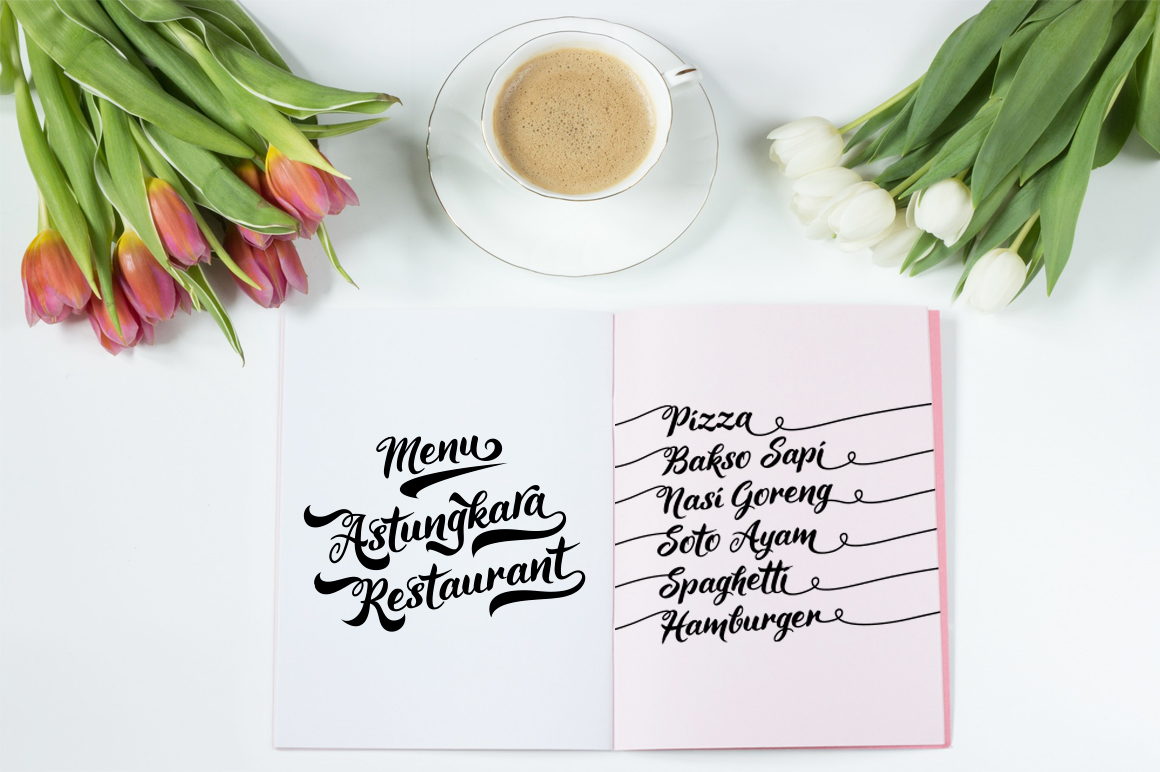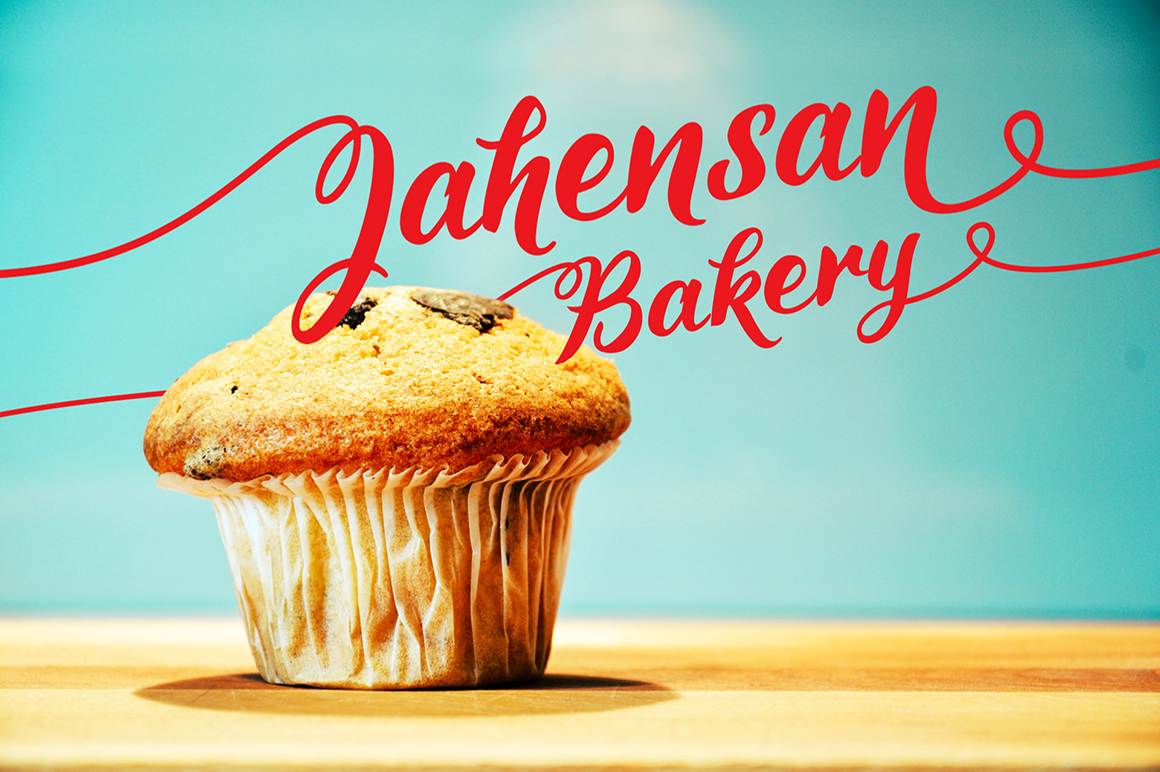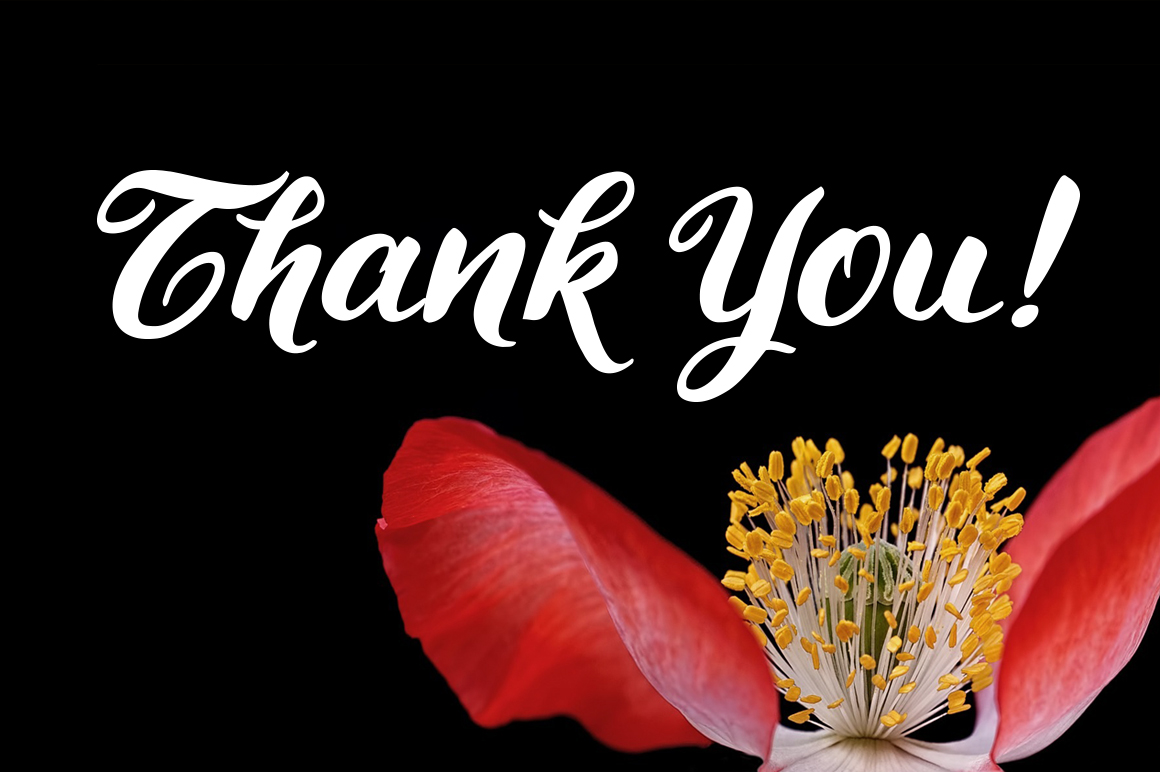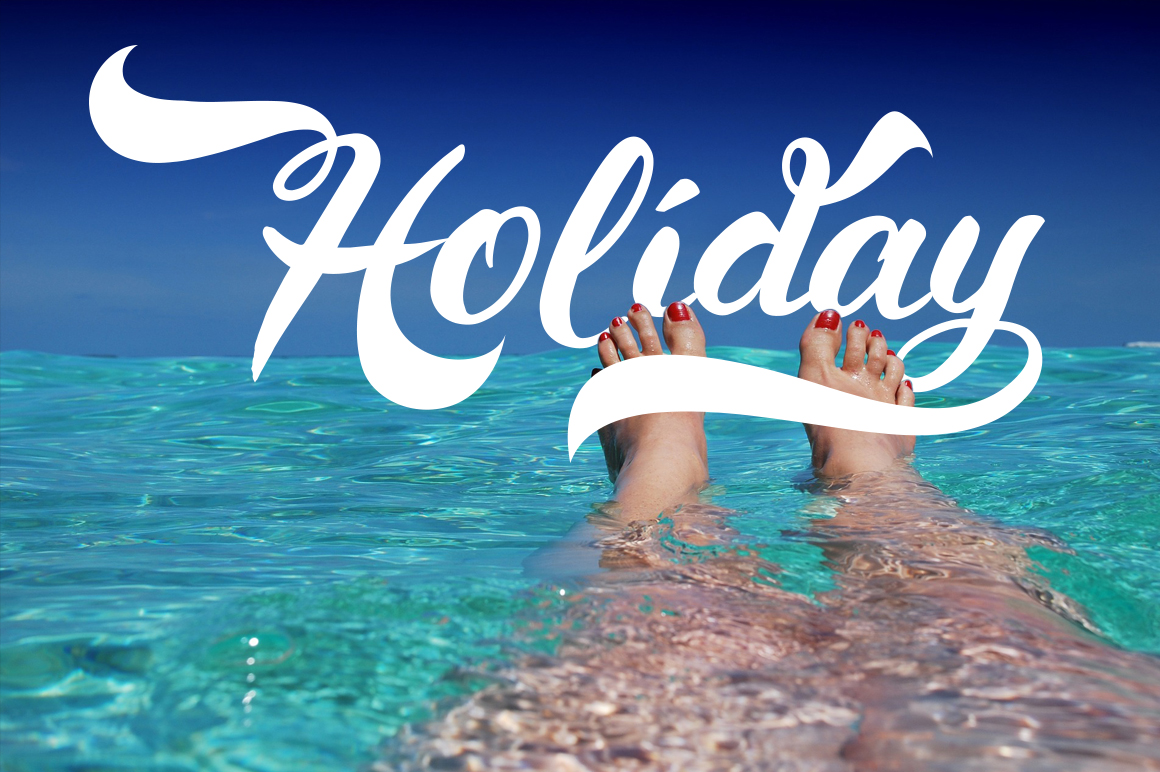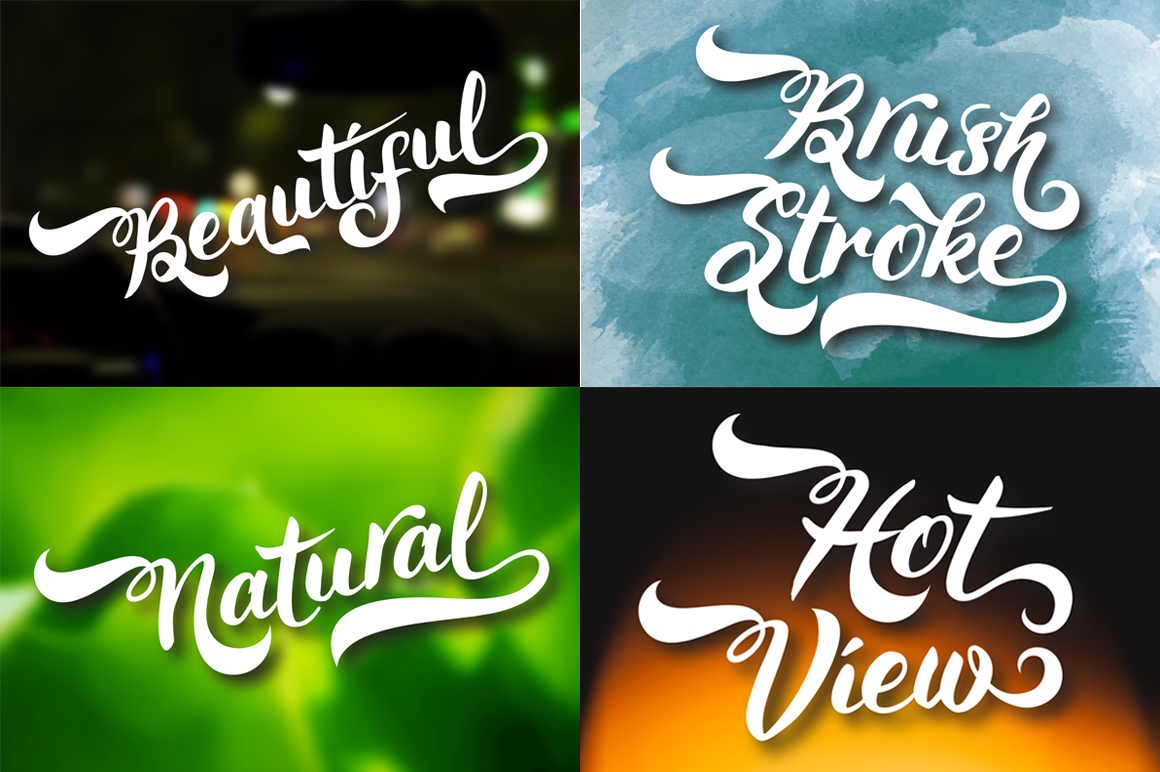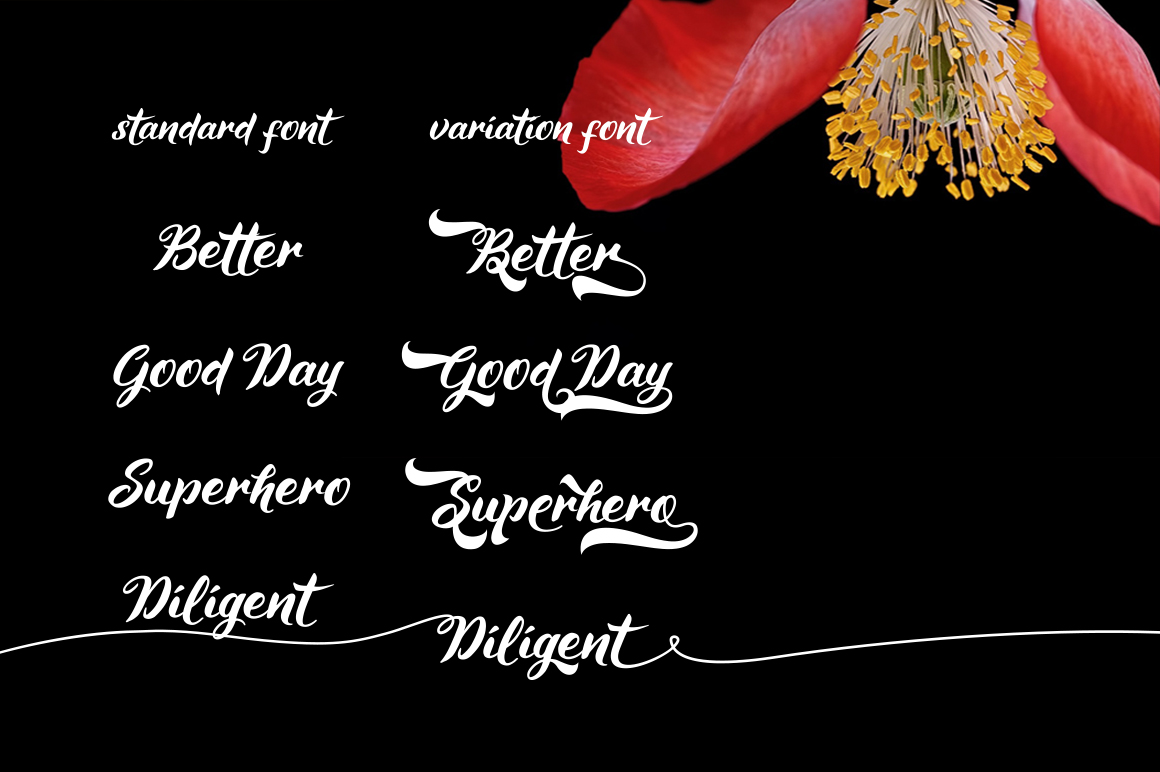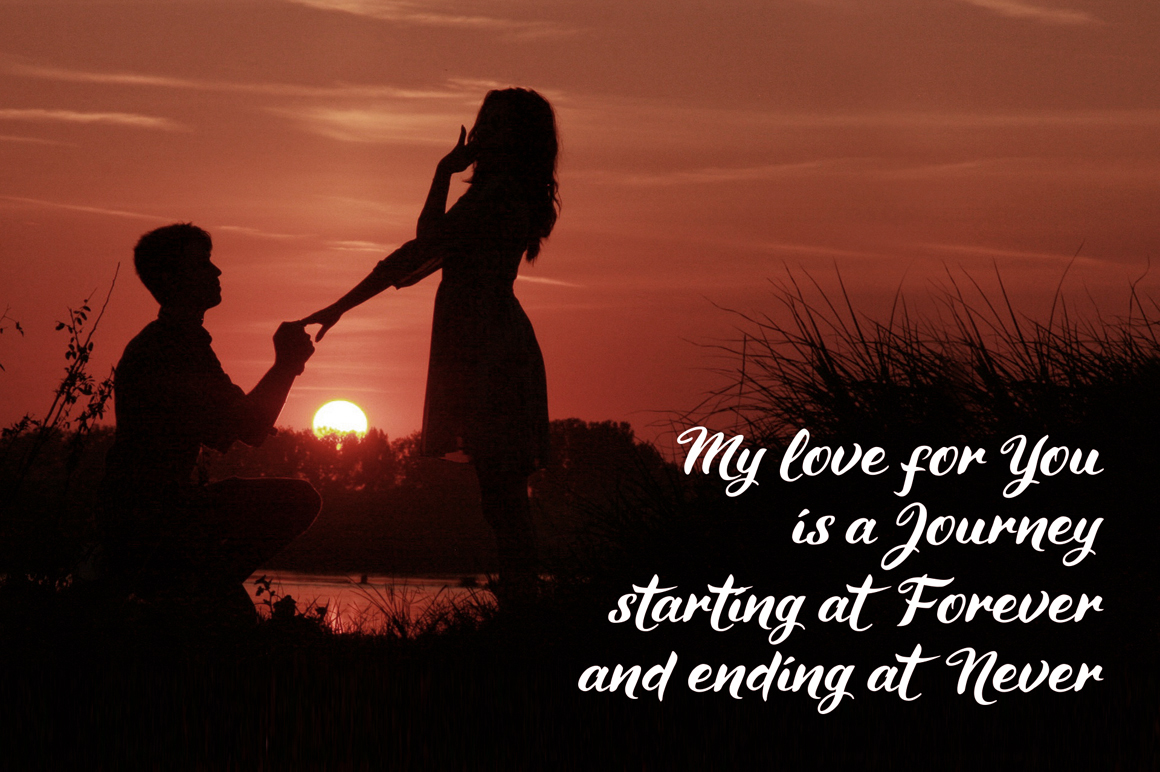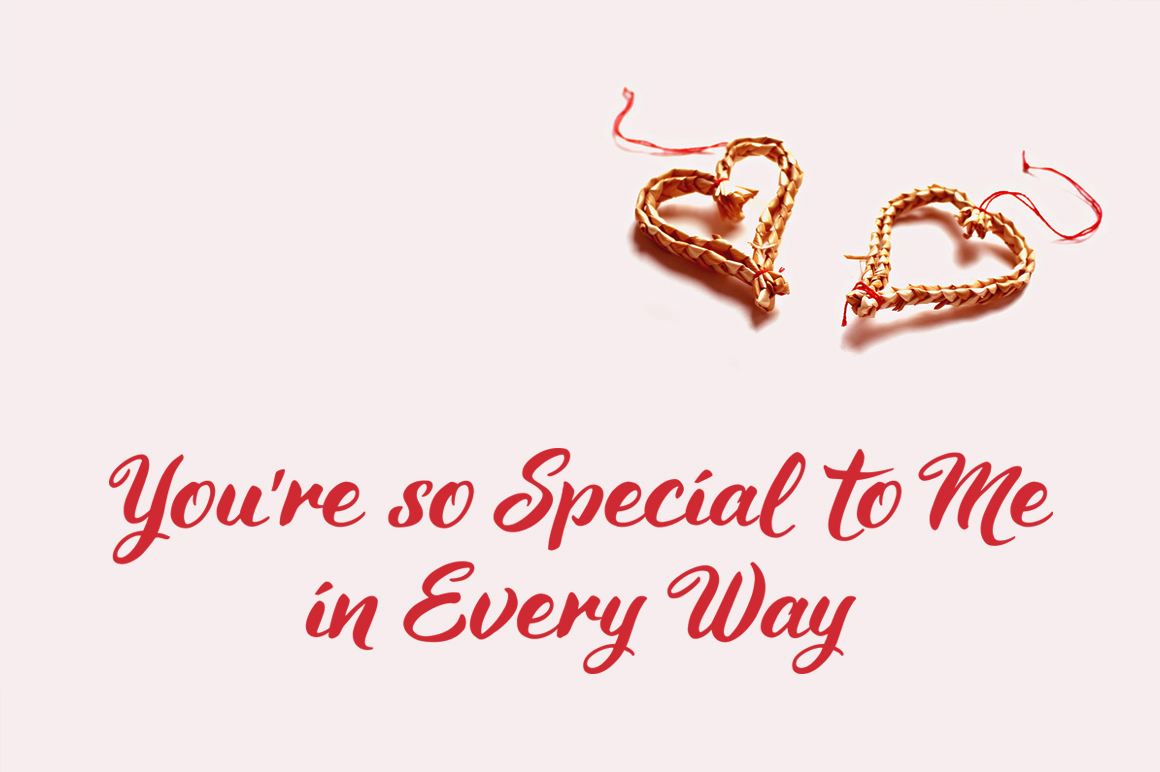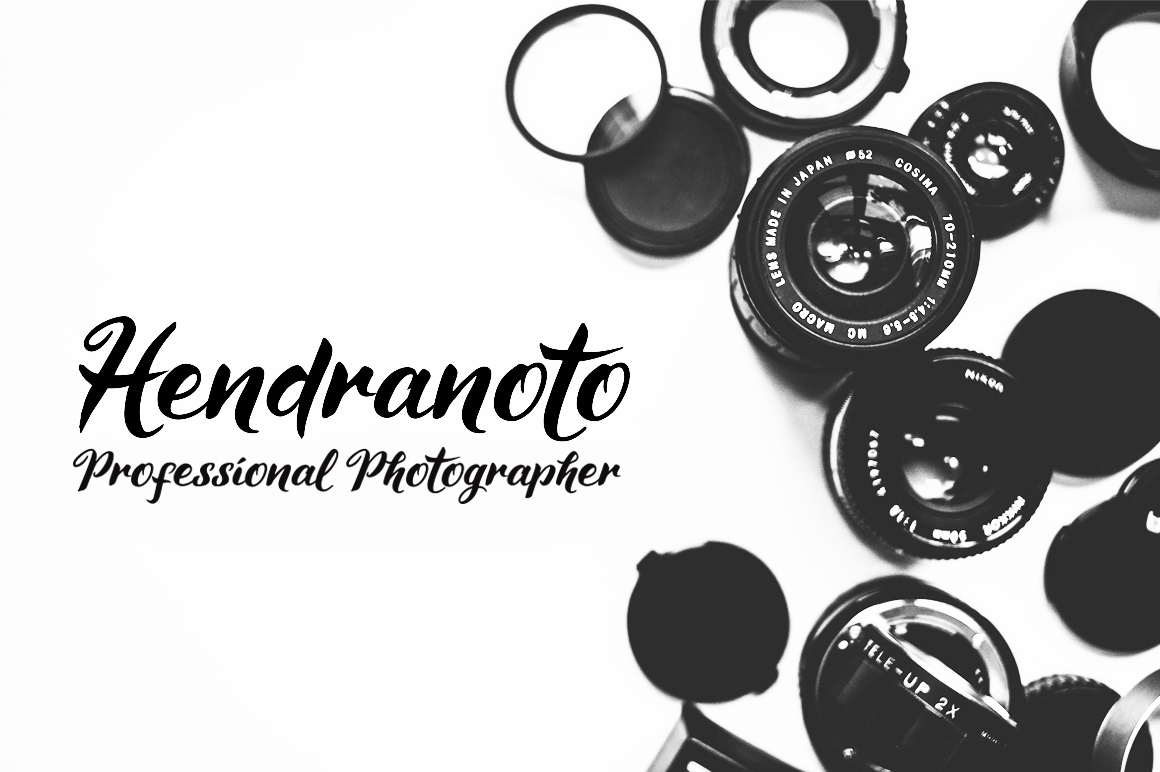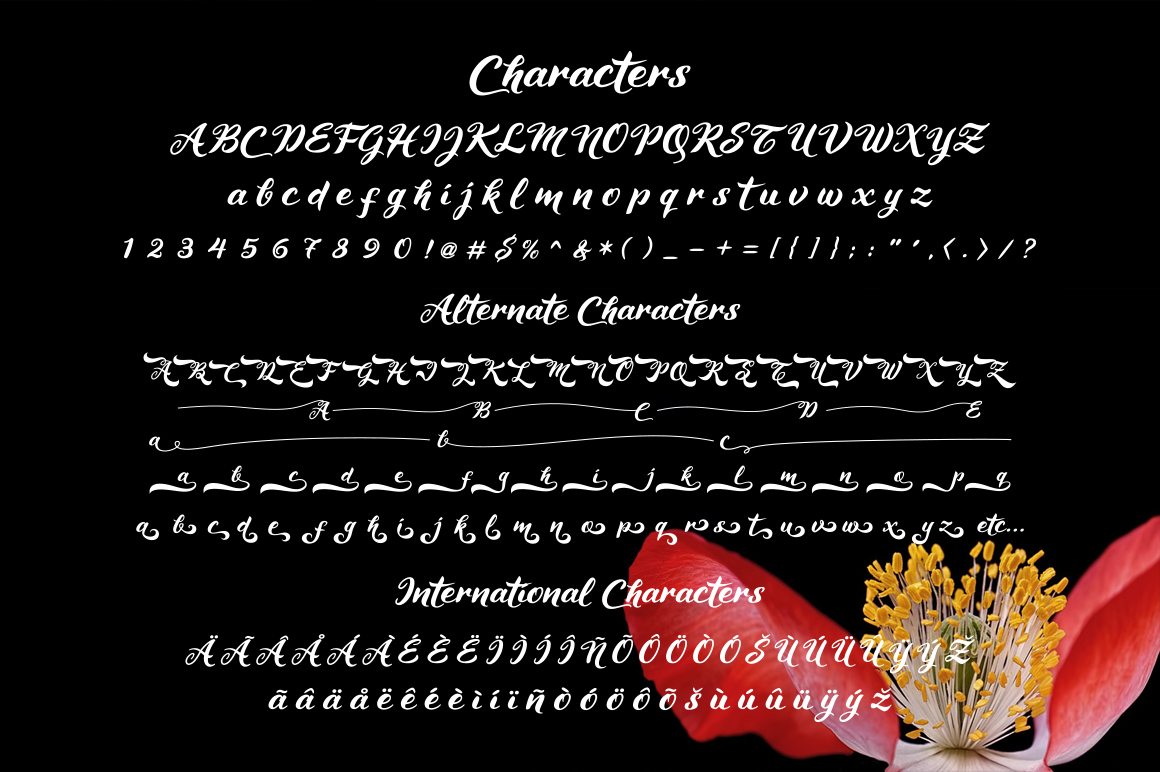
Maheera Font
About Maheera Font
Maheera is a handwriting script style font. It features many alternate glyphs and is suitable for a huge range of projects, such as wedding invites & thank you cards, logotype, corporate branding, banners, flyers and much more!